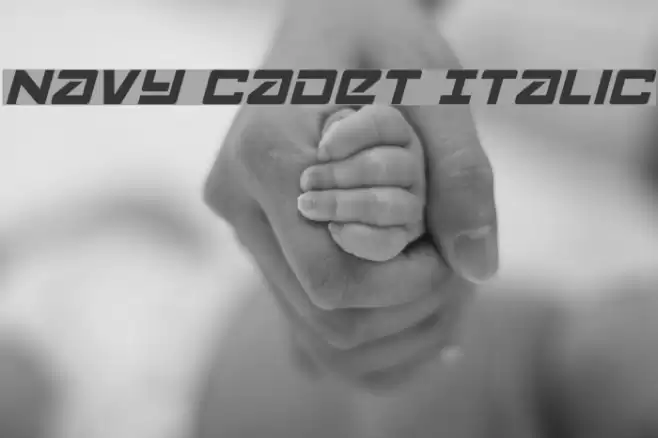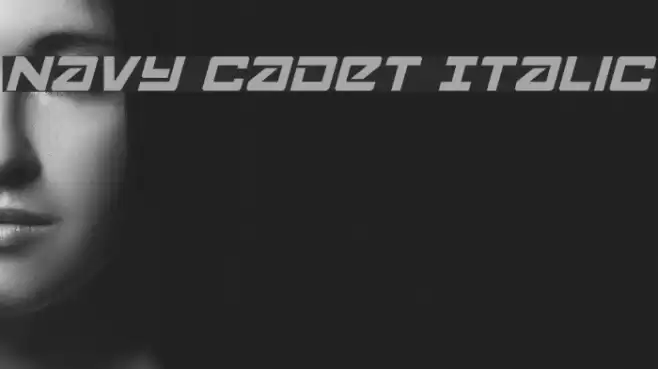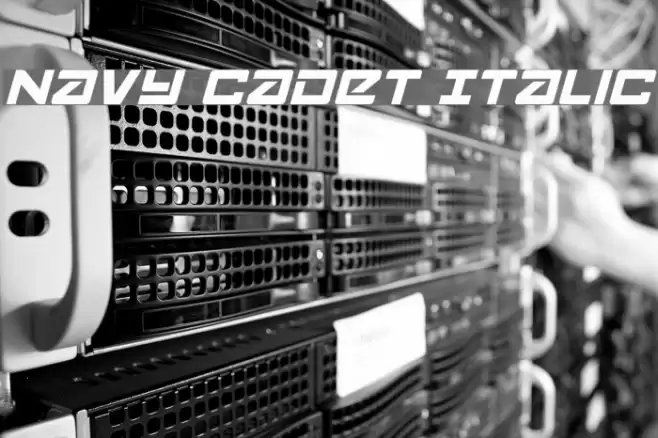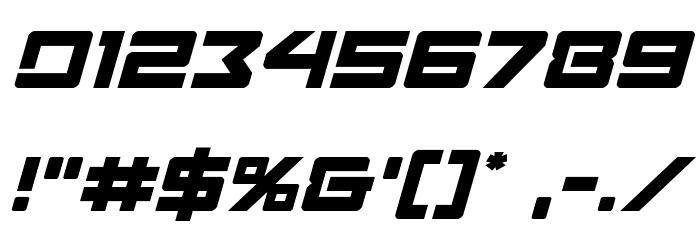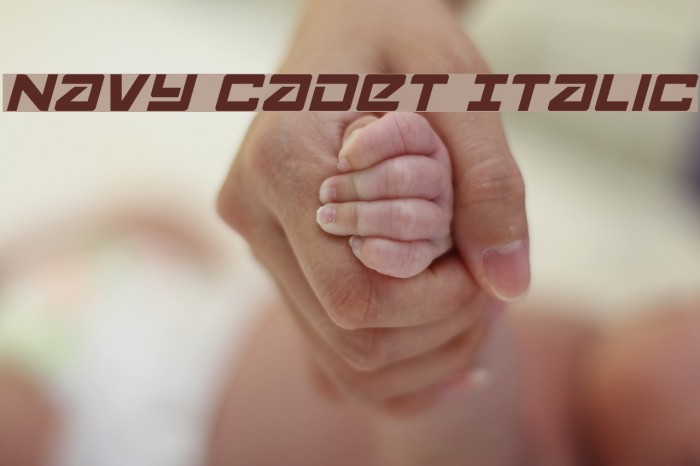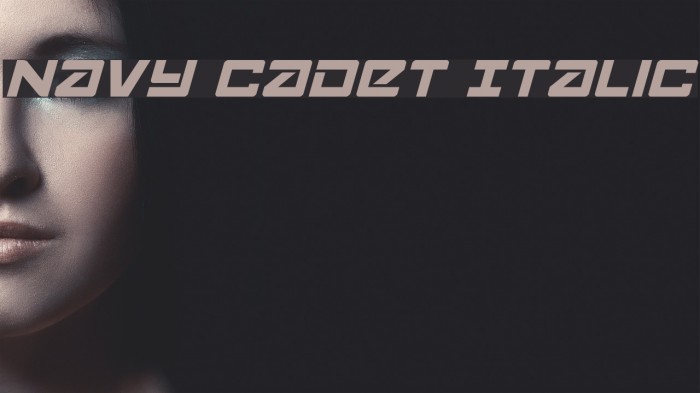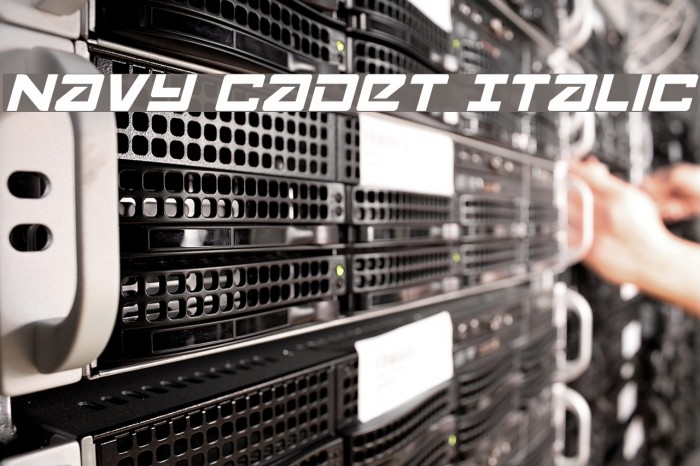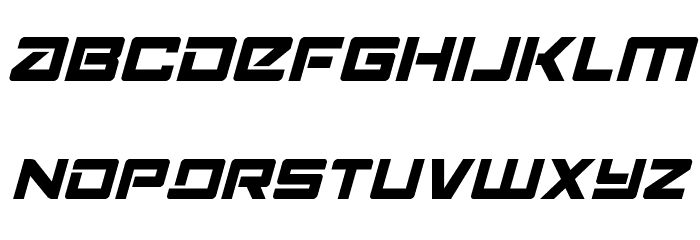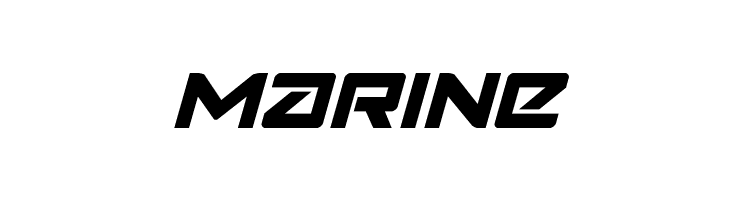
Navy Cadet Italic Font
Navy Cadet Italic Description
This font features a bold and dynamic design with a strong italic slant, giving it a sense of motion and energy. The characters are angular and geometric, with sharp edges and a futuristic appearance. The uppercase and lowercase letters maintain a consistent style, with the uppercase being slightly more pronounced. Numbers and special characters follow the same design principles, ensuring uniformity across all glyphs. The font's boldness and unique style make it stand out, suitable for projects that require a modern and edgy look.
A bold, italic, and futuristic font with angular, geometric characters from Sci-fi fonts.
- Proposed Projects: Ideal for sports branding, tech-related designs, video game titles, and dynamic posters.